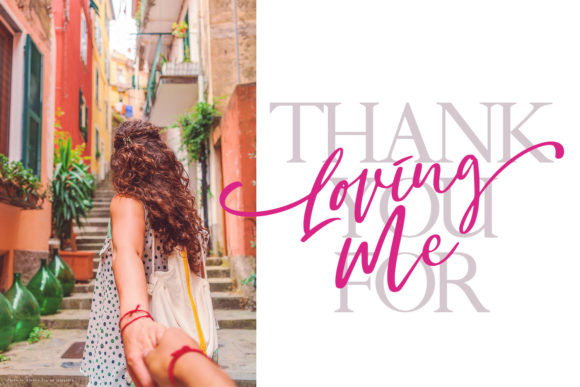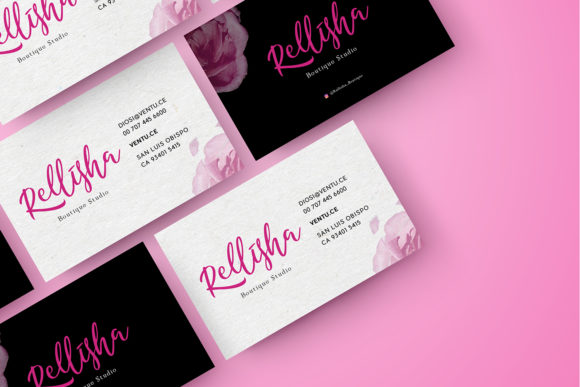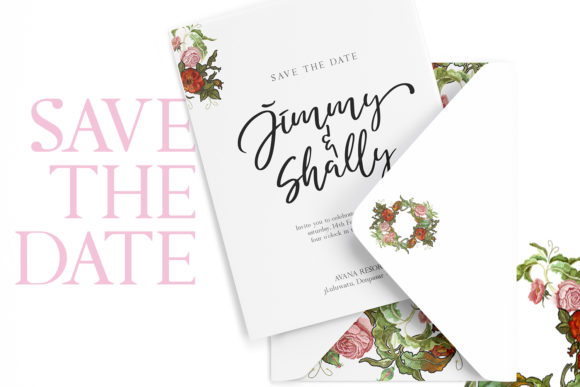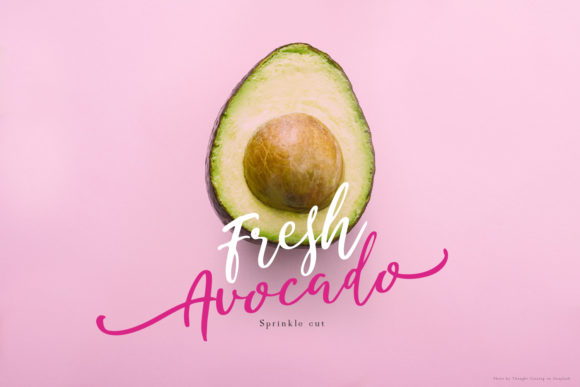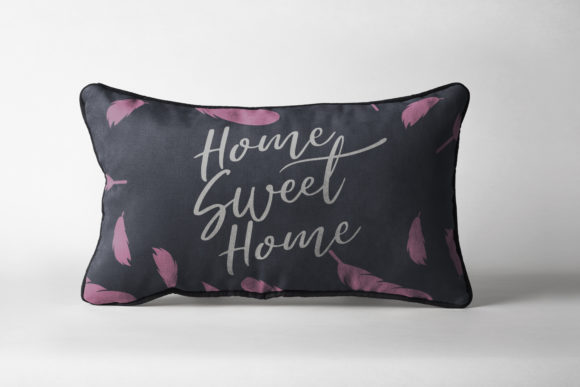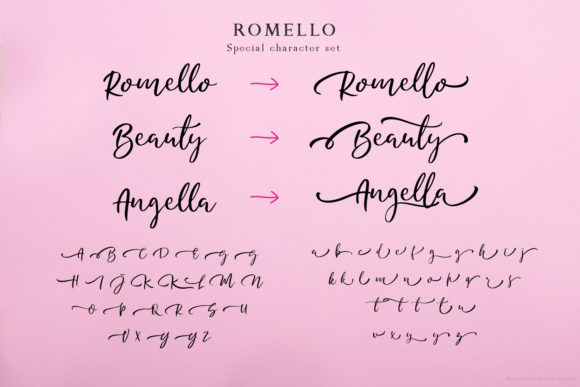
Introduction to Romello Font Font
Fonts play a crucial role in design, and the Romello Font font is a typeface that brings both character and versatility to any project. Whether you’re working on a branding project, a website, or a print design, the Romello Font font offers a unique style that can elevate your work.
Romello is an equally fun and cute script font thatβs great for adding that extra dash of personality to your next creative project.
Key Features of Romello Font Font
Why Choose Romello Font Font?
The Romello Font font is more than just a typeface β it’s a design tool that helps you communicate your message with style and clarity. Its unique character set and versatile design make it suitable for a wide range of applications, from elegant invitations to bold headlines.
With its carefully crafted letterforms and balanced proportions, the Romello Font font ensures readability and visual appeal across all mediums.
What makes Romello Font font special?
The Romello Font font stands out with its unique design, exceptional readability, and versatility across various design applications.